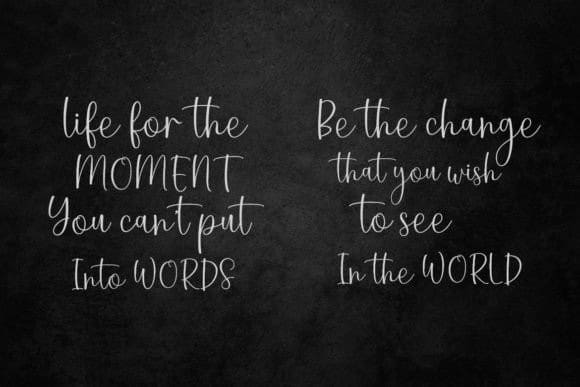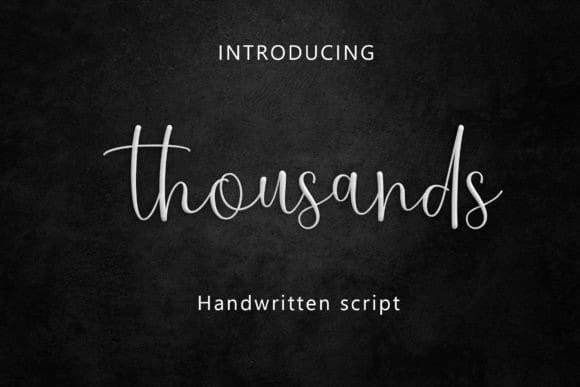
Thousands Script Font
Thousands Script Font is an elegant handwritten font that comes with masculine themes. It matches applies in some designs such as the logotype, brand, packaging, quotes, music poster, t-shirt, cover book, and more custom designs.